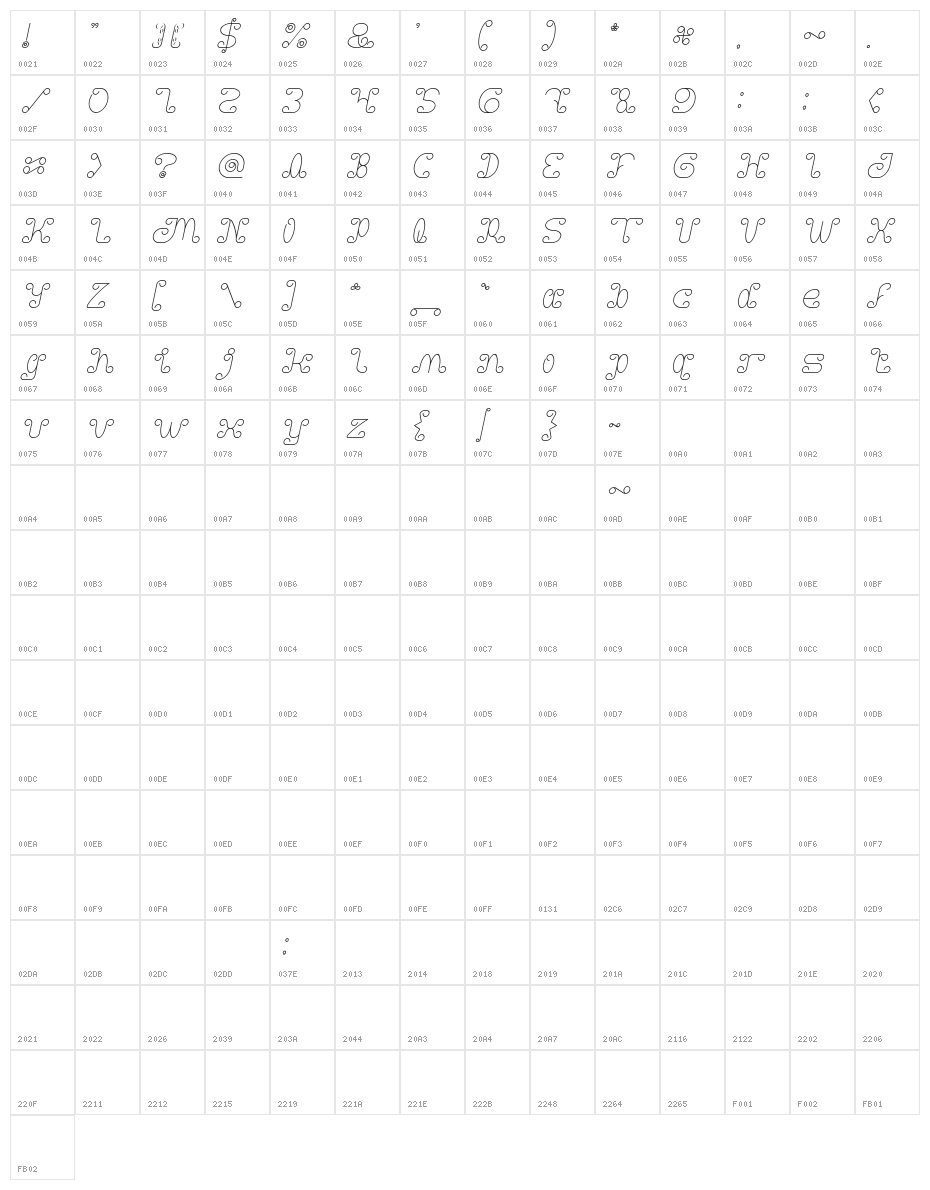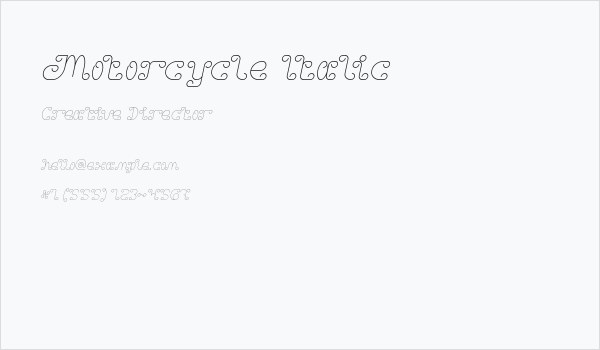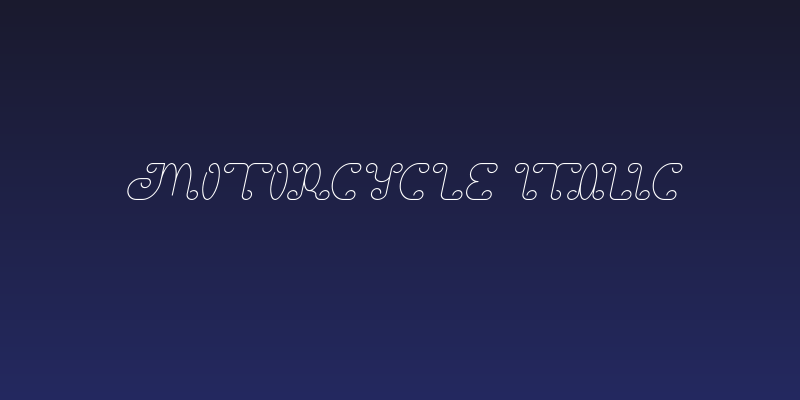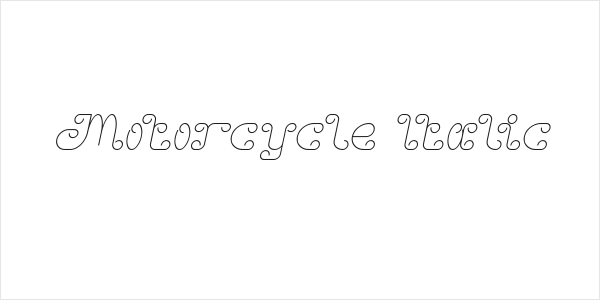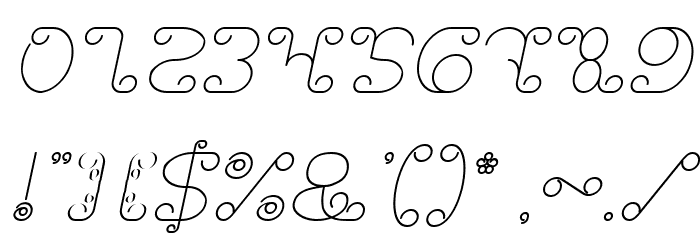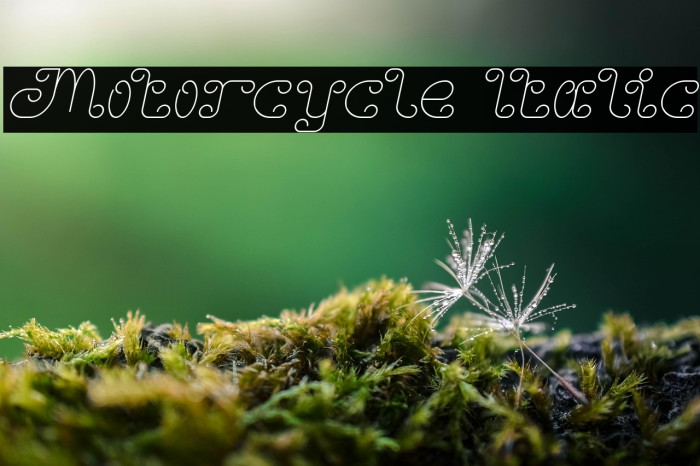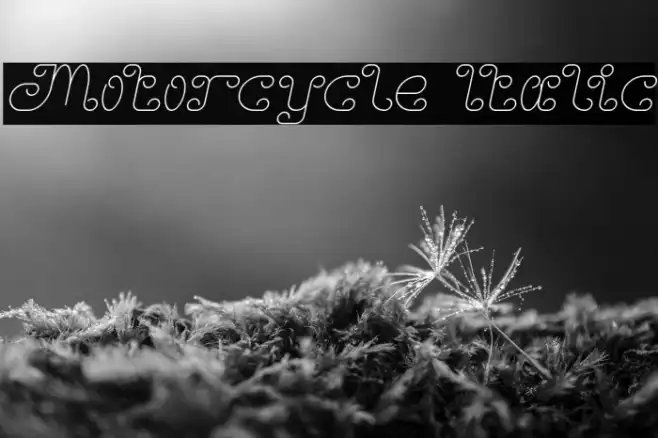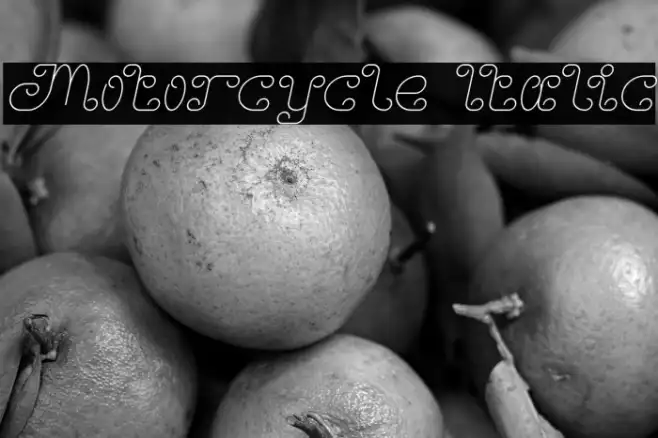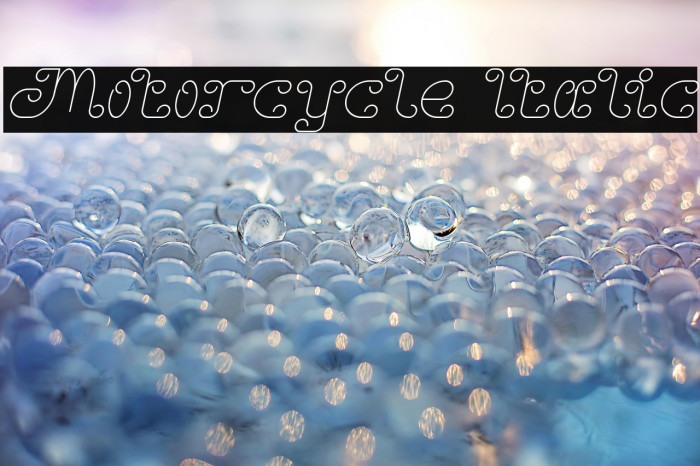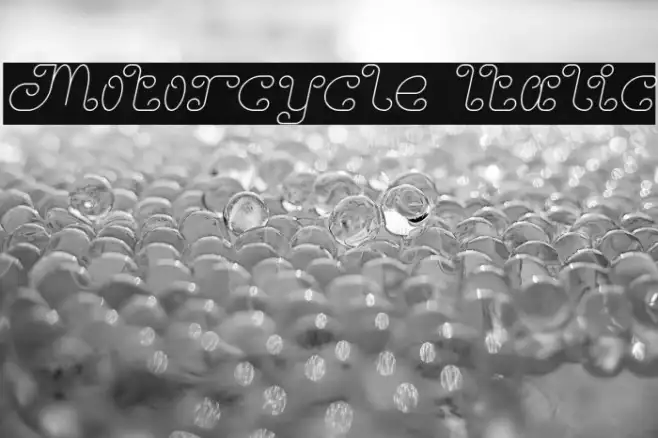
Motorcycle Italic Font
Motorcycle Italic Description
This font features a unique and playful design with a script-like quality, characterized by its continuous, flowing lines and loops. Each character is crafted with a whimsical touch, incorporating circular elements and swirls that give it a lively and dynamic appearance. The font maintains a consistent stroke width throughout, creating a harmonious and balanced look. Its decorative nature makes it stand out, while the italic slant adds a sense of movement and elegance. The overall style is both modern and artistic, making it suitable for creative and expressive projects.
| Proposed Projects | Ideal for creative projects such as invitations, greeting cards, posters, and branding materials where a whimsical and artistic touch is desired. |